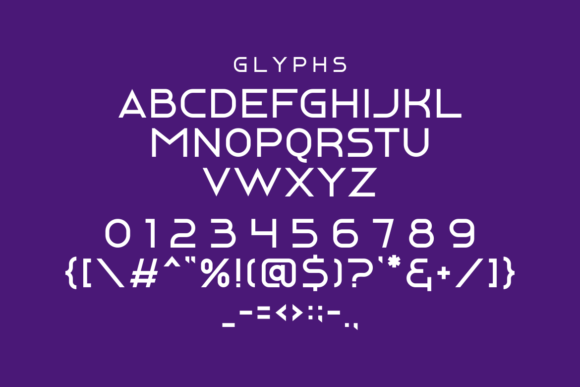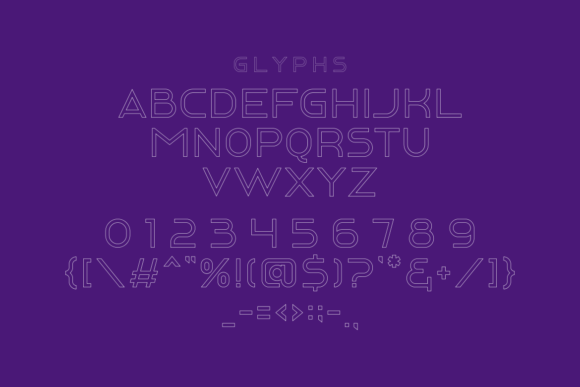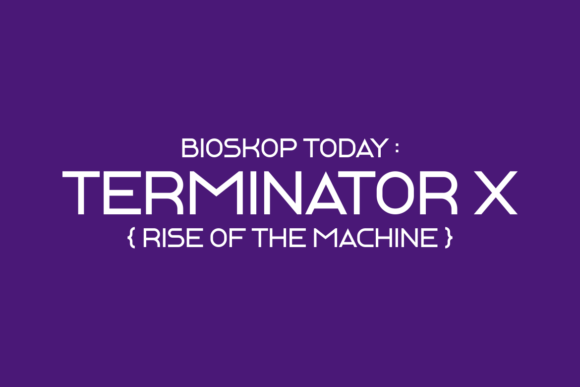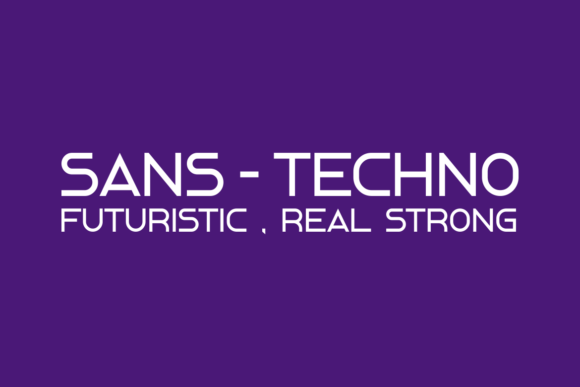
Introducing Devanger Font: The Ultimate Choice for Modern Designs
In the world of typography, fonts play a crucial role in making or breaking a design. A well-chosen font can elevate your project, making it stand out from the crowd, while a poorly chosen one can have the opposite effect. For designers and crafters looking for a modern and eye-catching sans-serif font, Devanger is an excellent choice. With its clean lines and contemporary design, Devanger is perfect for creating sleek and modern designs that demand attention.
What Makes Devanger Font Stand Out?
Devanger is a modern sans-serif font that boasts a unique and stylish aesthetic. Its clean lines, simple shapes, and geometric forms make it an ideal choice for designers who want to create modern and sophisticated designs. The font’s contemporary design ensures that it will not go out of style anytime soon, making it a great investment for any designer or brand.
Key Features of Devanger Font
- Clean and Modern Design: Devanger’s clean and modern design makes it perfect for creating sleek and sophisticated designs.
- Sans-Serif Font: As a sans-serif font, Devanger is ideal for digital and print designs, offering a clean and minimalist look.
- Geometric Shapes: The font’s geometric shapes and simple forms make it easy to read and versatile for various design applications.
- Attention-Grabbing: Devanger’s unique design ensures that it will grab attention, making it perfect for branding, editorial design, and any project that requires a touch of class and sophistication.
Use Cases for Devanger Font
Devanger’s versatility makes it suitable for a wide range of design applications. Here are some use cases where Devanger excels:
- Branding: Devanger is perfect for creating modern and sophisticated brand identities, including logos, business cards, and letterheads.
- Editorial Design: The font’s clean and modern design makes it ideal for editorial design, including magazines, newspapers, and online publications.
- Digital Design: Devanger is suitable for digital designs, including website headers, social media graphics, and mobile app interfaces.
- Print Design: The font’s geometric shapes and simple forms make it perfect for print designs, including brochures, flyers, and posters.
Tips for Using Devanger Font Effectively
To get the most out of Devanger, here are some tips for using the font effectively:
- Pair with Other Fonts: Devanger pairs well with other sans-serif fonts, creating a harmonious and modern look.
- Use for Headings: The font’s attention-grabbing design makes it perfect for headings, titles, and subheadings.
- Experiment with Colors: Devanger looks great in a variety of colors, so don’t be afraid to experiment and find the perfect color scheme for your design.
In conclusion, Devanger is a modern and eye-catching sans-serif font that is perfect for creating sleek and modern designs. Its clean lines, geometric shapes, and contemporary design make it an ideal choice for designers and crafters looking for a touch of class and sophistication. With its versatility and attention-grabbing design, Devanger is sure to elevate your designs and make them stand out from the crowd.